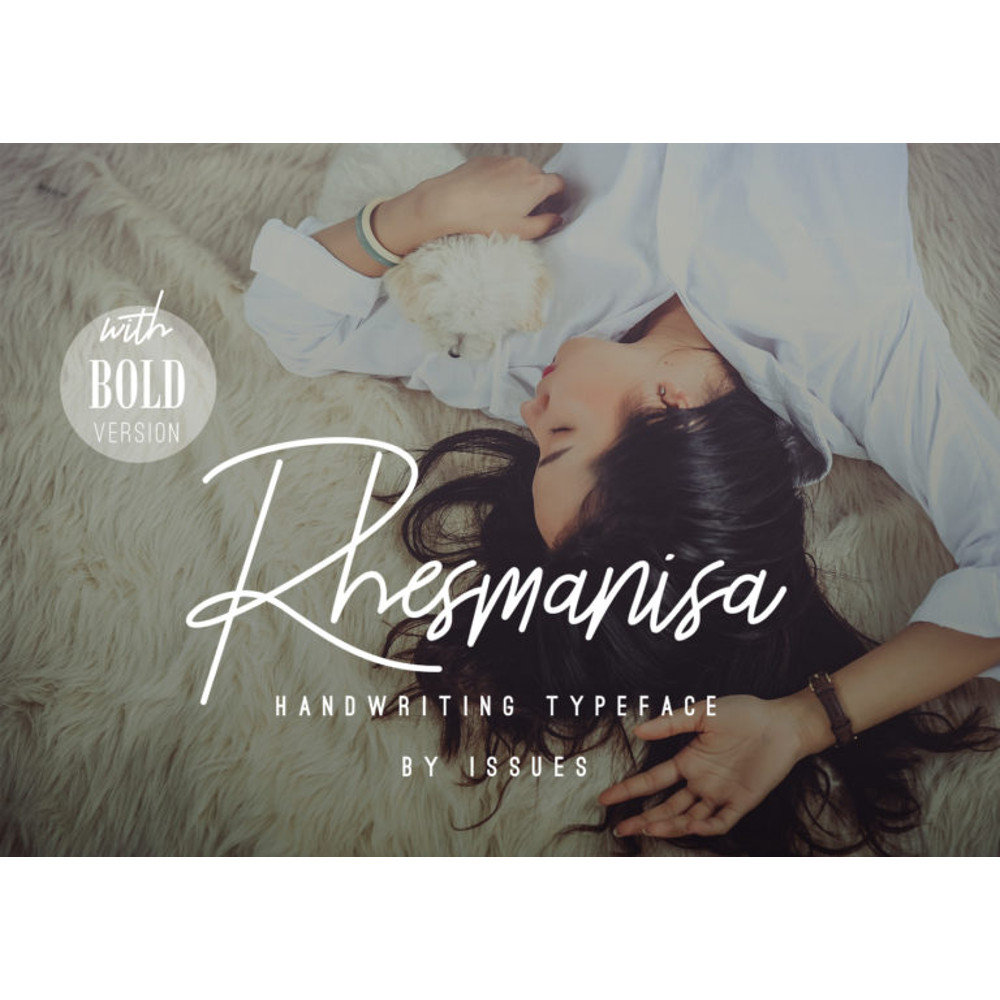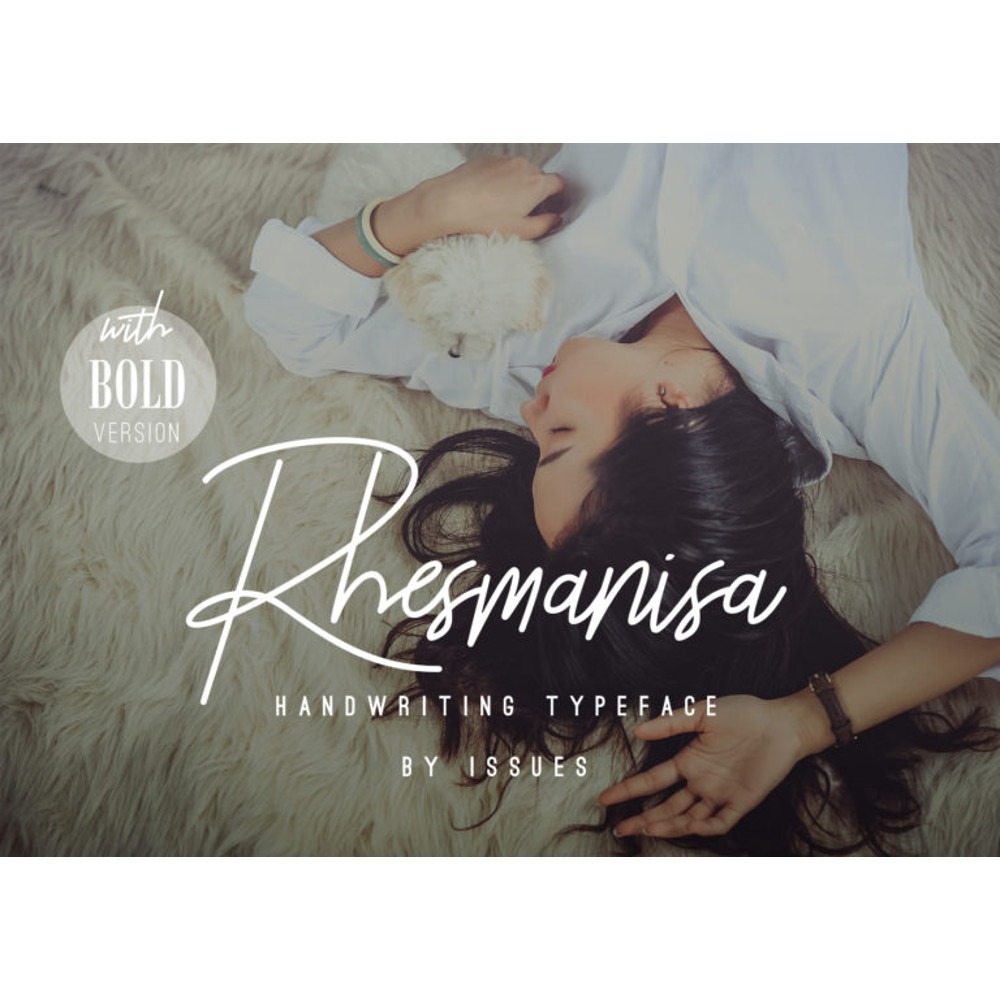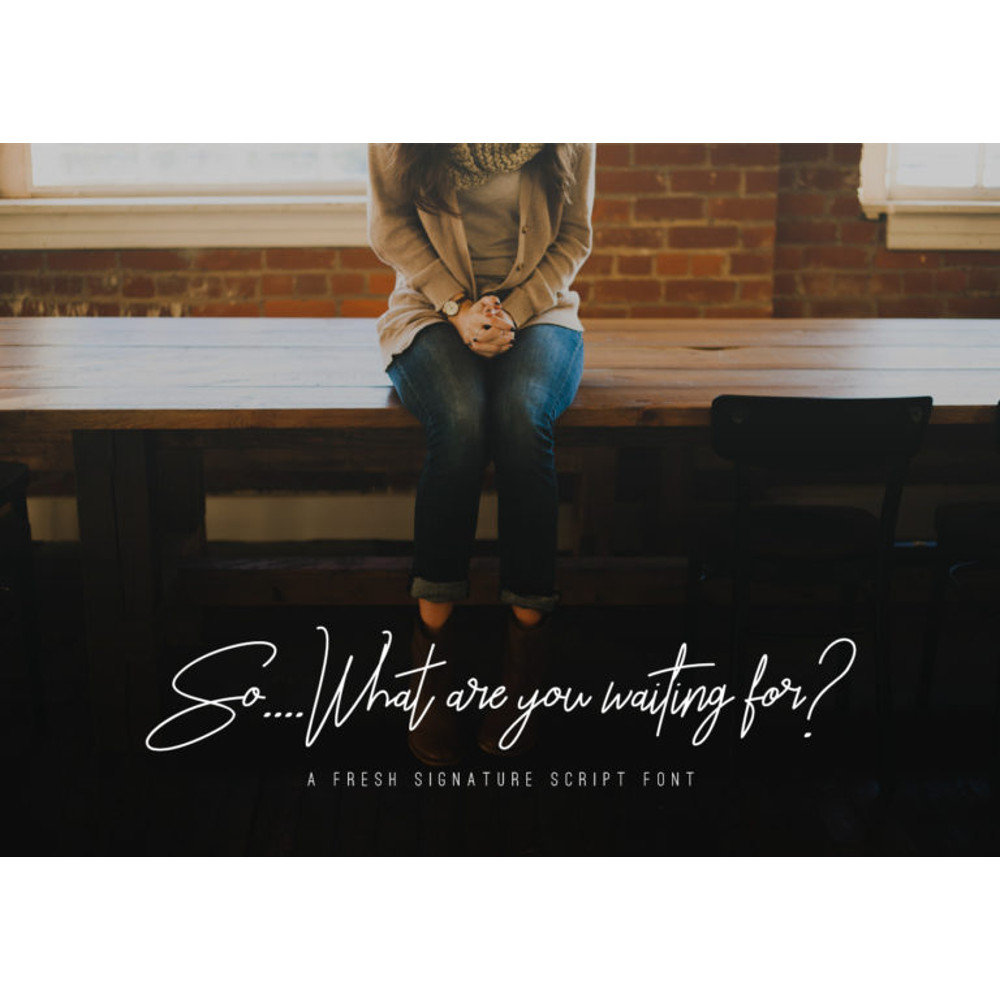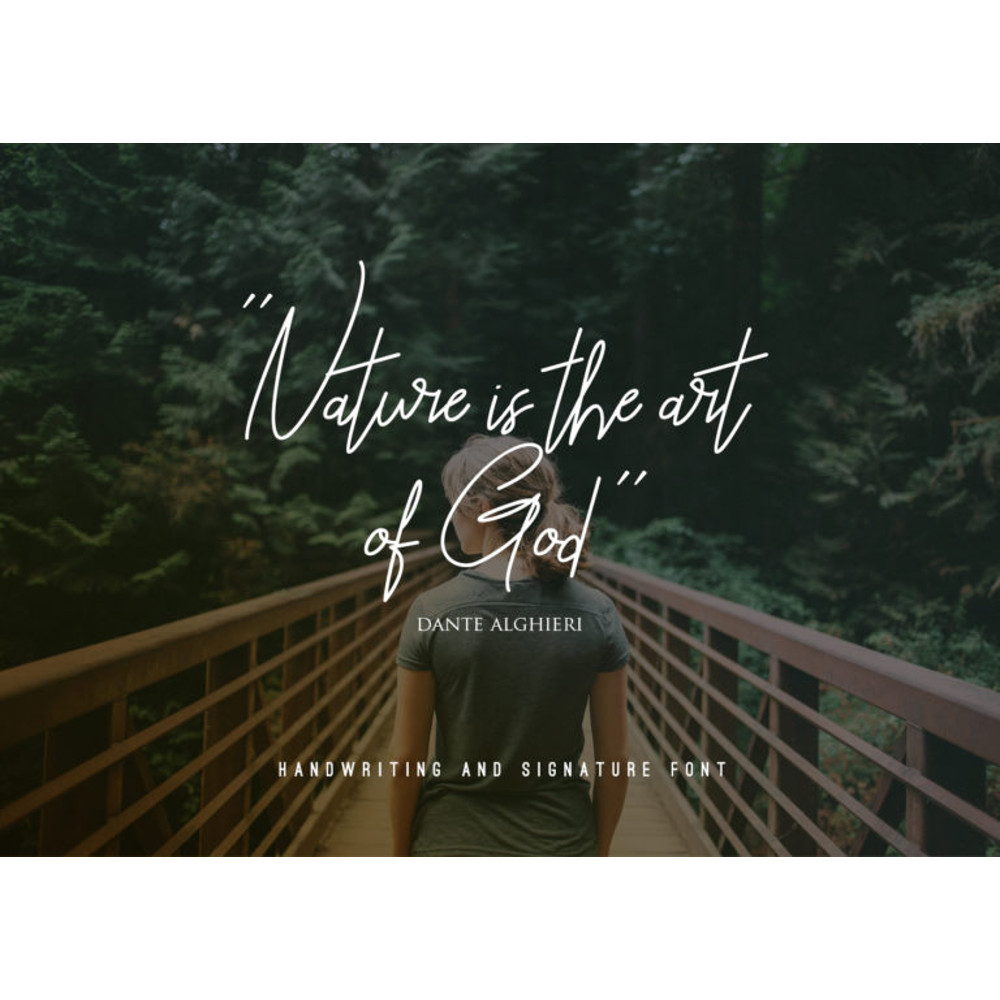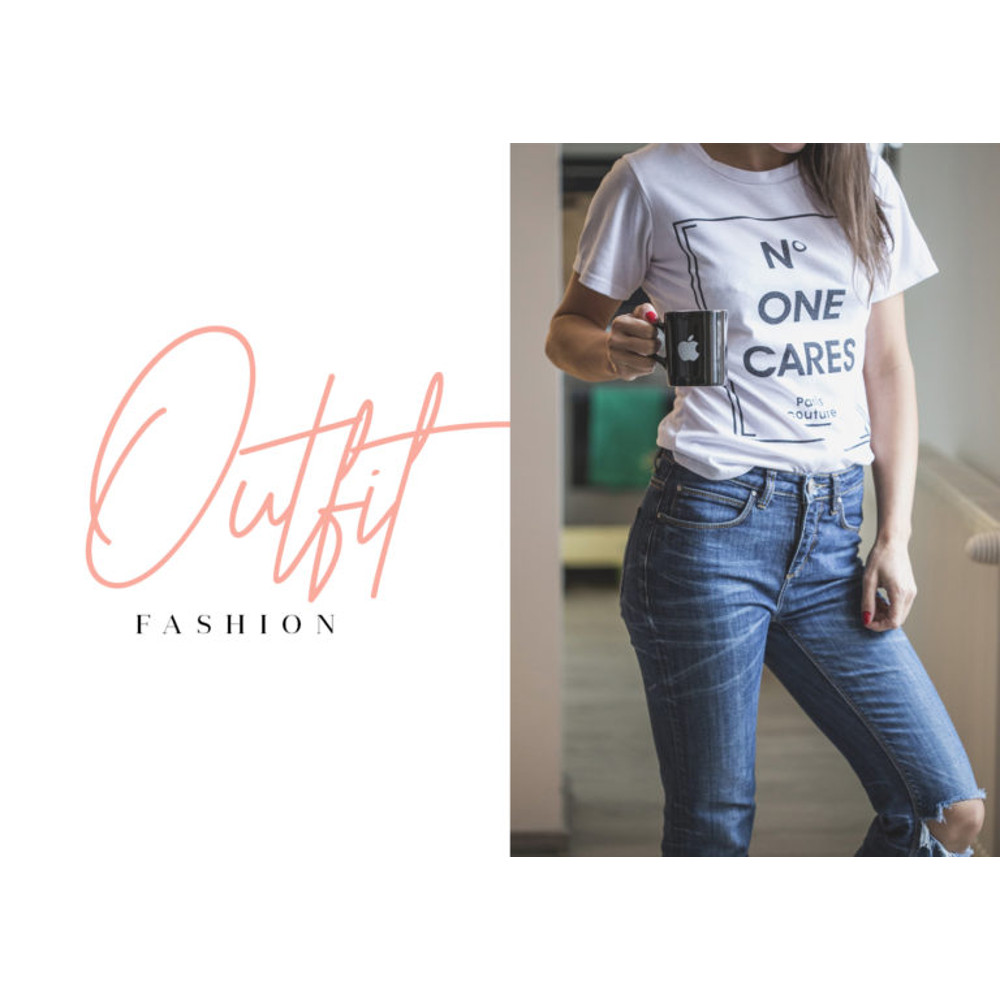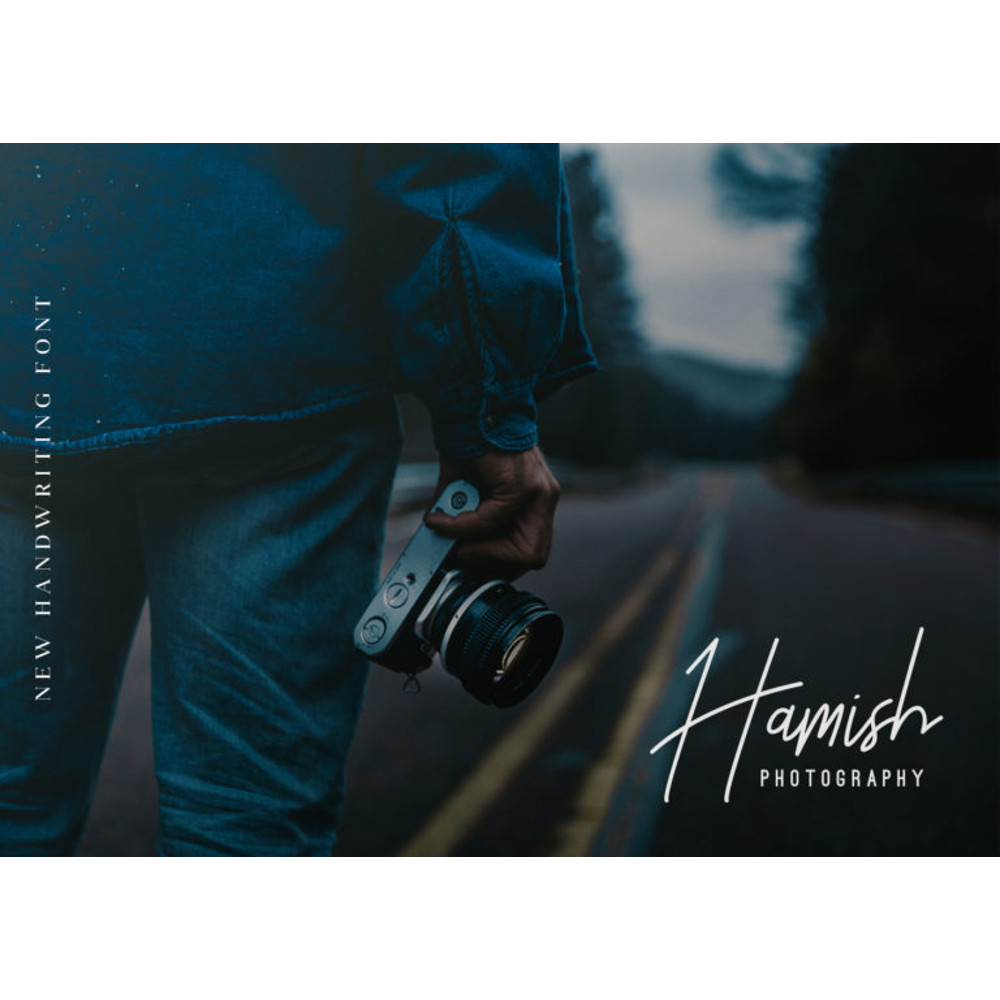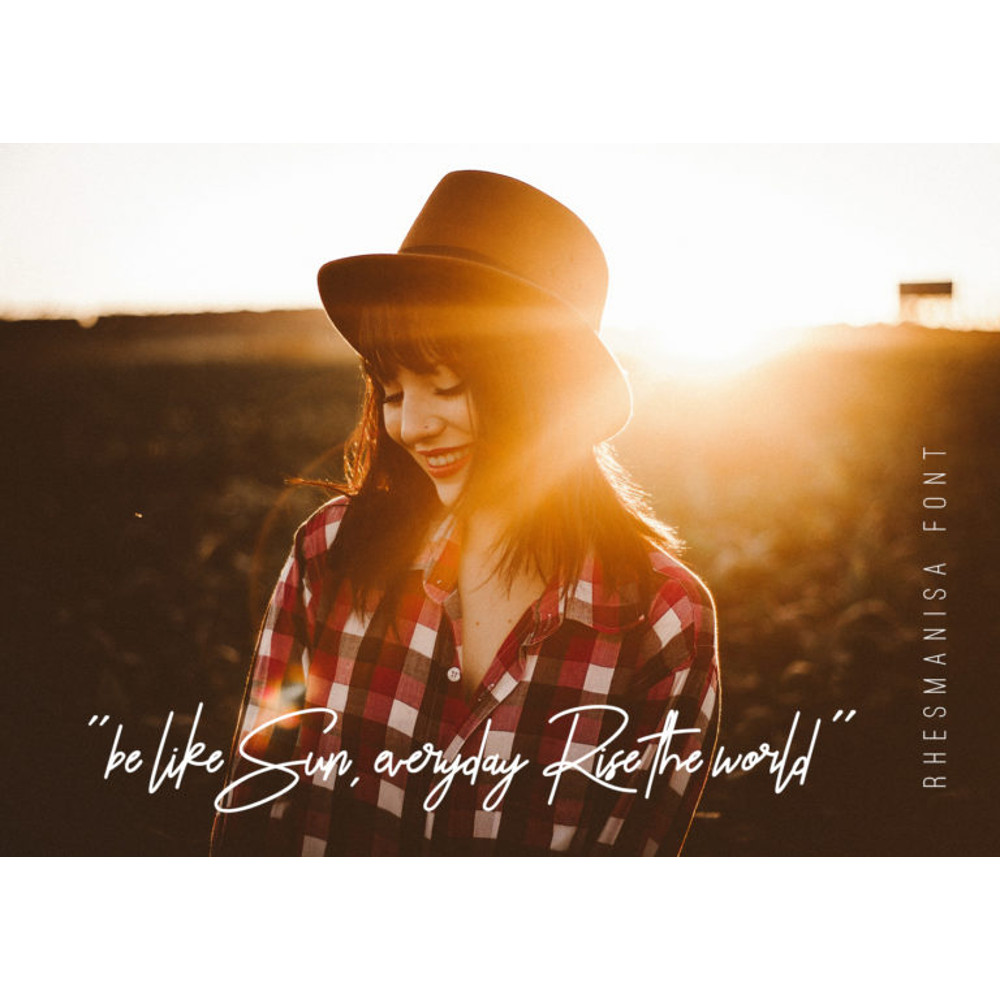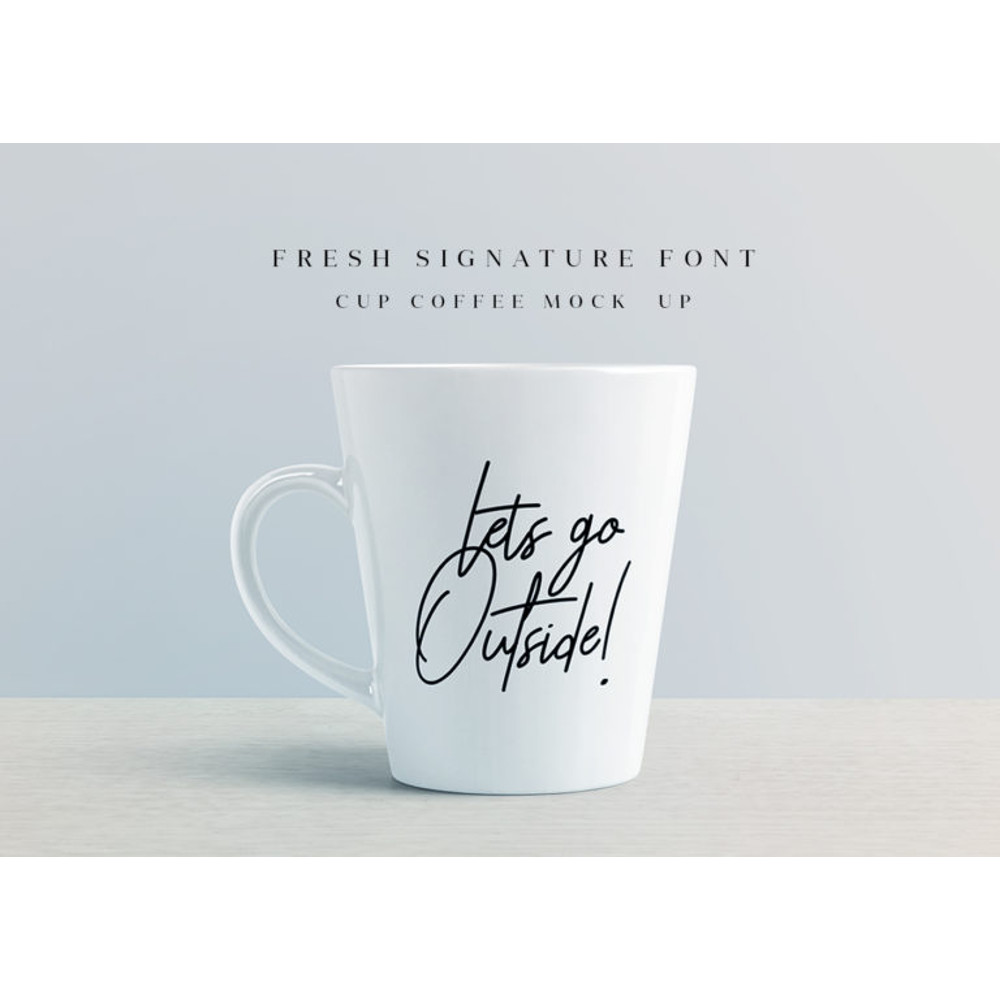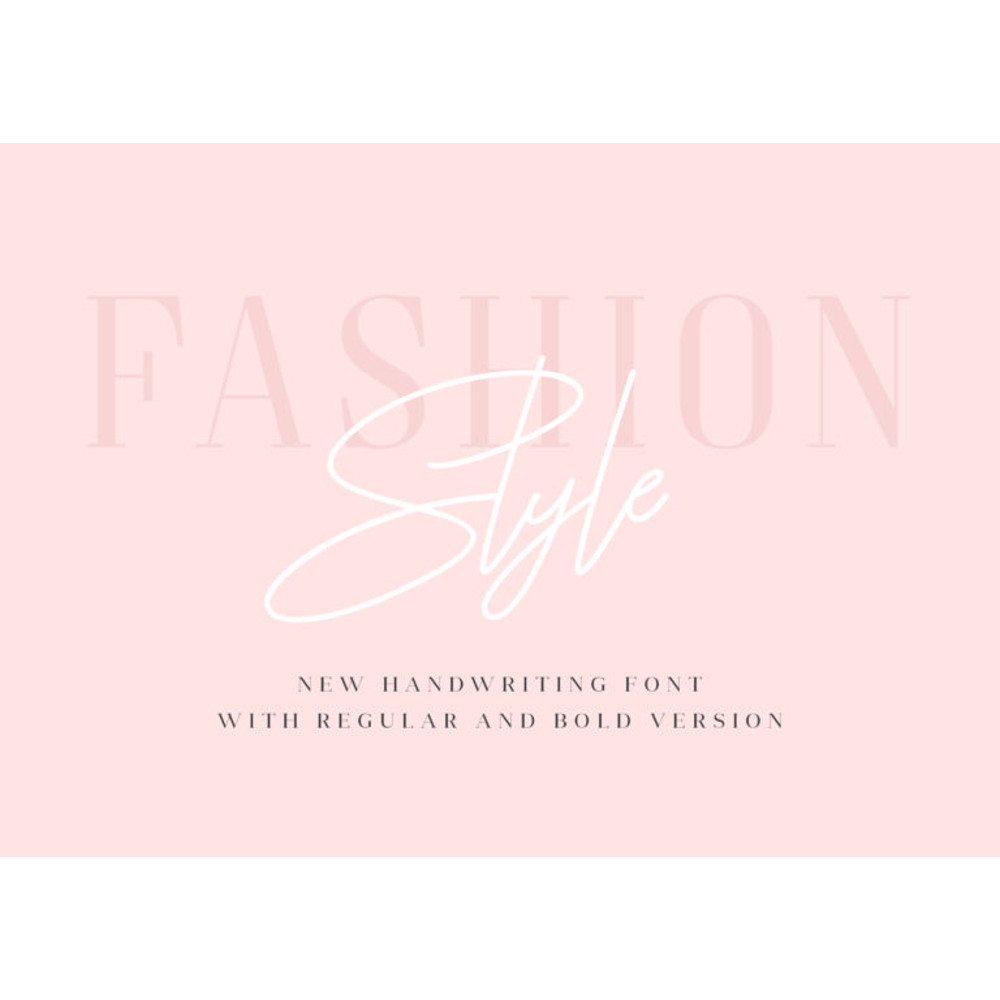
Rhesmanisa – Signature Font Trending Fonts - Digital Font
Rhesmanisa Signature Font – a new modern & fresh script with a handwritten and script style make this font looks elegant, natural, stylish and perfect for any awesome projects that need handwriting taste.
Rhesmanisa would perfect for photography, watermark, social media posts, advertisements, logos & branding, invitation, product designs, label, stationery, wedding designs, product packaging, special events or anything that need handwriting taste.
Rhesmanisa have 2 families, Regular and Bold